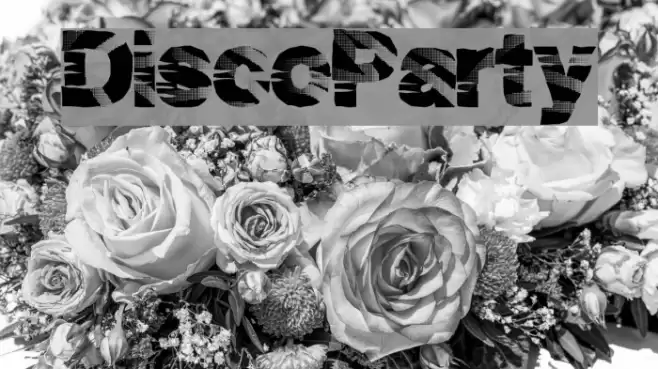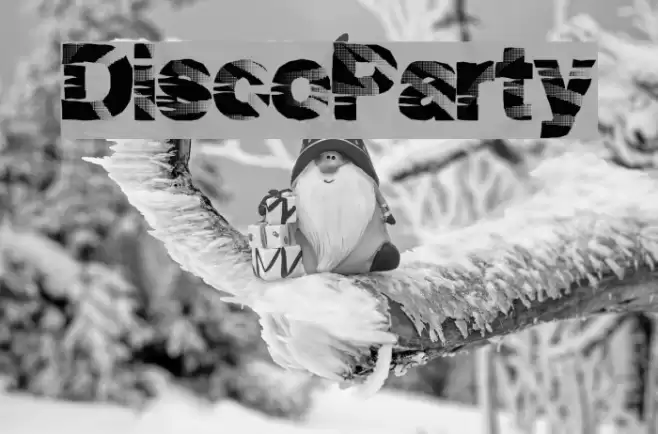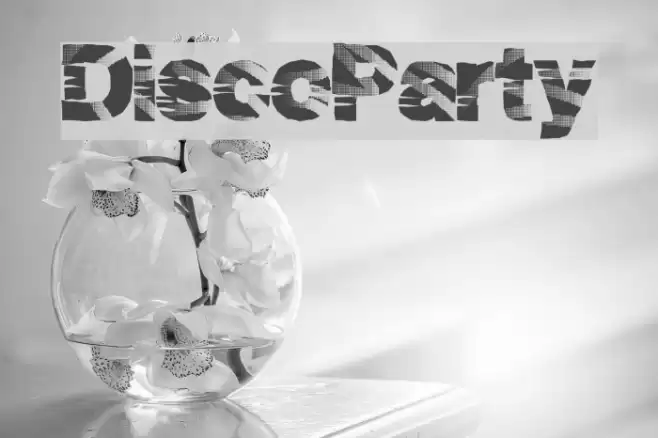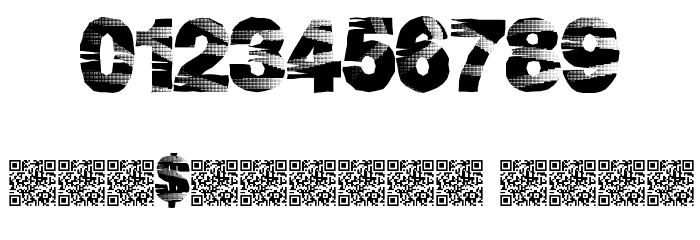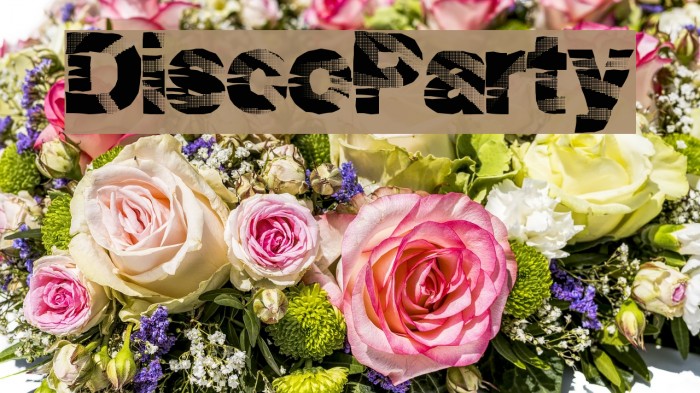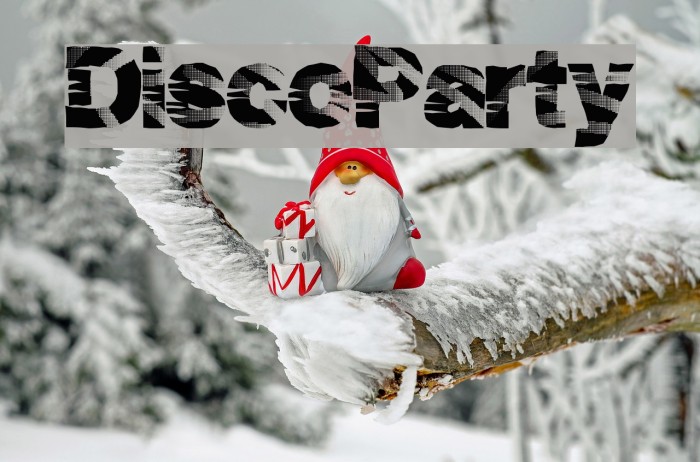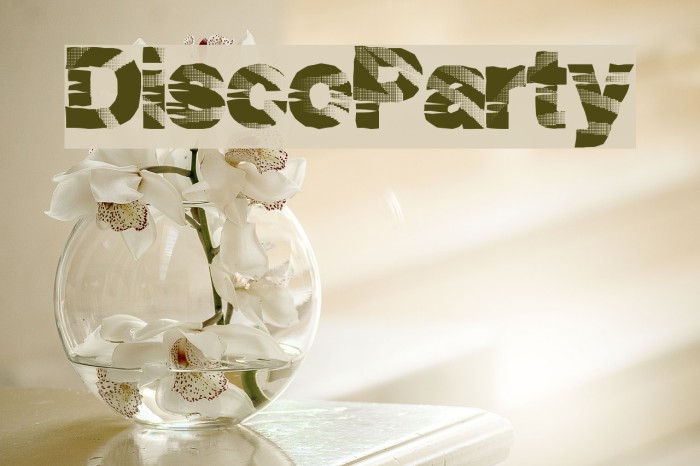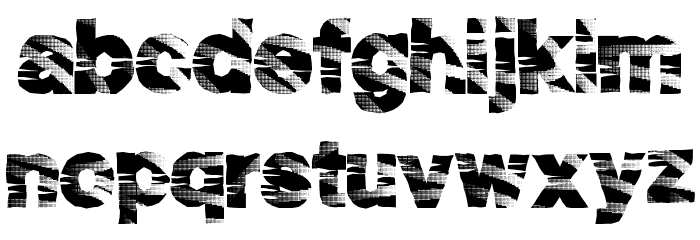
DiscoParty Font
DiscoParty Description
This font features a bold and dynamic design with a distinct disco-inspired aesthetic. The characters are filled with a pattern that resembles a dance floor or disco ball, creating a sense of movement and energy. The uppercase and lowercase letters maintain a consistent style, with rounded edges and a playful, rhythmic flow. Numbers and special characters are equally bold, ensuring uniformity across all text elements. The font's unique texture and style make it stand out, perfect for projects that aim to capture a lively and vibrant atmosphere.
A bold, disco-inspired font with a dynamic, patterned design from Decorative fonts.
- Proposed Projects: Ideal for party invitations, music event posters, retro-themed designs, and branding for entertainment venues.